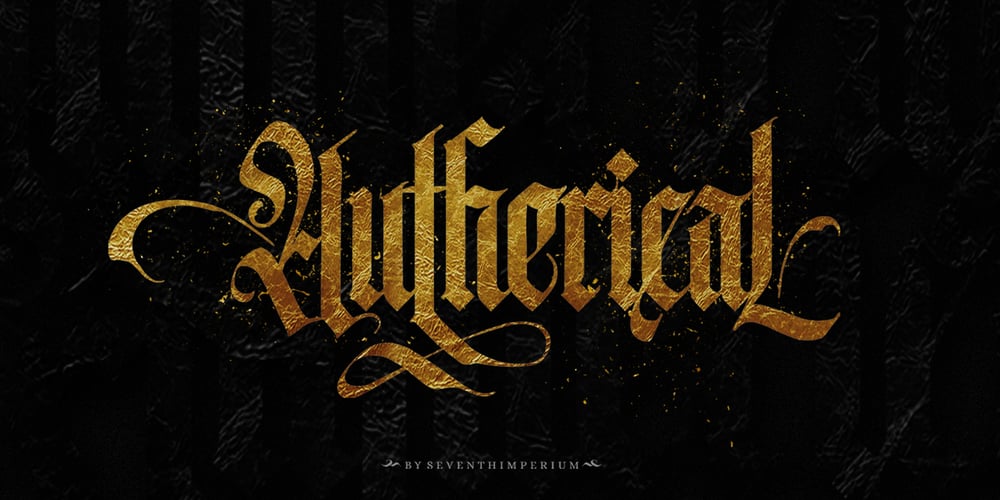
Autherical
Autherical font
Autherical Font Family was designed by Cucu Supriyadi and published by Seventh Imperium. Autherical contains 3 styles and family package options. Autherical is old and stylish display font, was inspired by old fraktur calligraphy. This typeface comes with two version regular and slant. Also comes with extra ornament and multilingual characters support.more than 400 glyph and lots of alternates, access the all alternates by PUA code, create you boldest old stylish on your designs with this typeface.